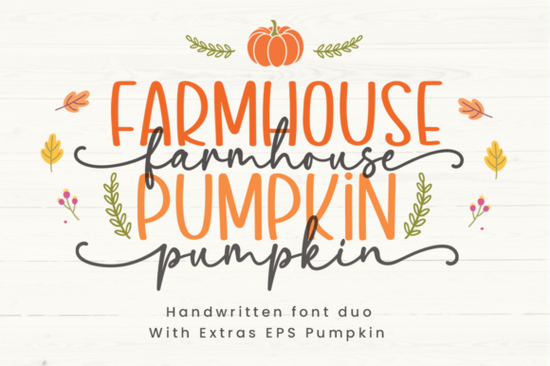
If you’ve been scrolling through fall-themed design projects lately, you’ve probably noticed how much personality handwritten fonts add to cozy seasonal graphics. One that’s quietly becoming a favorite among crafters and small business owners is the Farmhouse Pumpkin font a sweet, casual duo that includes both a sans and script style. It’s not flashy or overly ornate, but that’s exactly why it works so well for autumn signs, printable quote art, or even rustic wedding invites with a seasonal twist.
What makes this pair stand out is how naturally they complement each other. The sans version keeps things grounded and readable, while the script adds just enough bounce and charm to feel personal like something scribbled on a chalkboard at your favorite local café. If you’ve ever used Saturday Font, you’ll recognize that same laid-back energy, but Farmhouse Pumpkin leans a little more into the “farmhouse fall” aesthetic with its rounded terminals and gentle curves.
What kinds of projects does this font work best for?
This isn’t the kind of font you’d use for corporate reports or tech brochures. But if you’re designing:
- Fall market stall signage
- Printable pumpkin spice quote art
- Cozy Instagram story templates
- Personalized wood-burned gifts
- Autumn wedding place cards or menus
…then Farmhouse Pumpkin fits right in. Its handwritten vibe feels warm and approachable perfect for designs meant to feel handmade or nostalgic. You can also layer the script over the sans for contrast, which works great on layered SVG files for cutting machines or digital mockups.
How does it compare to other casual script fonts?
If you already own Simple Signature, you know how useful a clean, minimal script can be. Farmhouse Pumpkin is similar in spirit but has more character literally. The letters have subtle variations in stroke width and a few playful swashes that give it more movement. For something even more organic, Natural Handwriting might be closer to true pen-on-paper texture, but Farmhouse Pumpkin strikes a nice middle ground: legible enough for small text, but still full of personality when scaled up.
One thing users appreciate is how well-spaced the letters are. Nothing feels cramped or forced, which saves time on kerning adjustments especially helpful if you’re batch-producing POD products or social media graphics.
Any tips for pairing it with other fonts or colors?
Because it’s got such a friendly, down-to-earth tone, it pairs beautifully with simple sans-serifs like Montserrat, Lato, or even system fonts like Arial when you need contrast. Avoid pairing it with other scripts that can get visually noisy.
Color-wise? Think warm neutrals: cream, sage, burnt orange, and soft browns. A faded denim blue also works surprisingly well if you want to soften the autumn palette. Try setting the script in a deep mustard and the sans in off-white for that “vintage farmhouse journal” look.
And don’t forget texture. Overlaying the text on a subtle paper grain or linen background enhances that handmade feel without needing extra effects.
Where should I start if I’m new to using script fonts?
If you’ve mostly stuck to basic system fonts, jumping into a handwritten duo like this might feel intimidating. Start small:
- Use the sans version for body text or labels it’s easier to read at smaller sizes.
- Reserve the script for headlines, names, or short phrases where personality matters most.
- Play with tracking (letter spacing) before adjusting kerning sometimes just loosening it slightly makes the script breathe better.
- Test print or export your design at actual size. Some scripts look great on screen but lose clarity when printed small.
You don’t need fancy software either. Canva, Silhouette Studio, and even Google Slides handle these font files just fine. If you’re using Cricut Design Space, upload the OTF files they tend to render more reliably than TTF in that platform.
Still unsure? Try typing out “Welcome Fall” or “Pumpkin Everything” in both styles. That’s usually all it takes to see how naturally this font settles into seasonal projects.